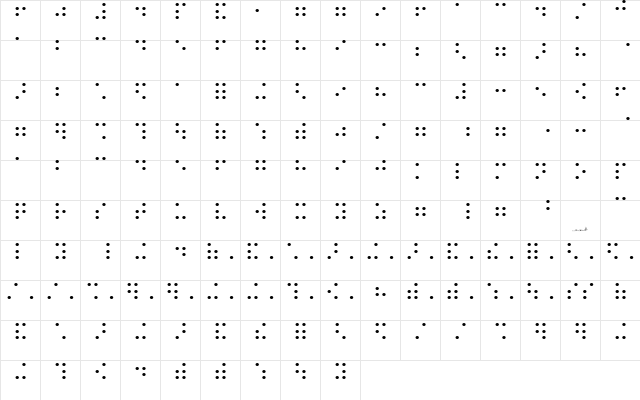
MC braille Regular
Designer: Marek Cerajewski
Design Context for MC braille
MC braille is a composed and adaptable typeface that performs quietly and consistently across a wide range of design contexts.